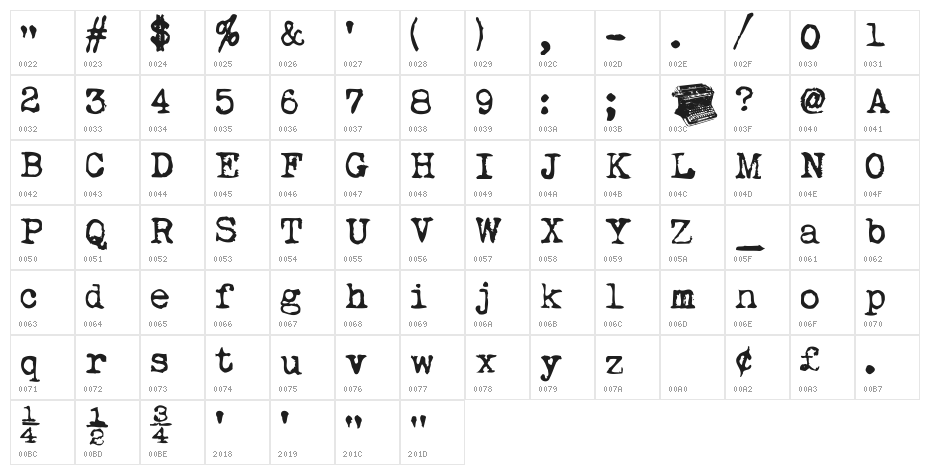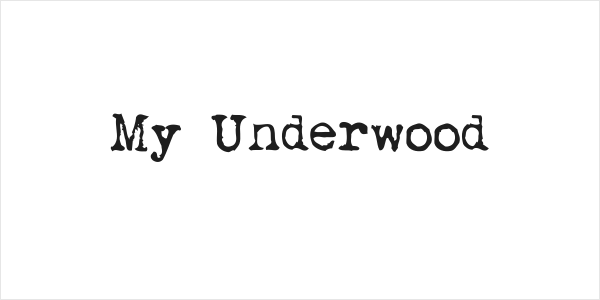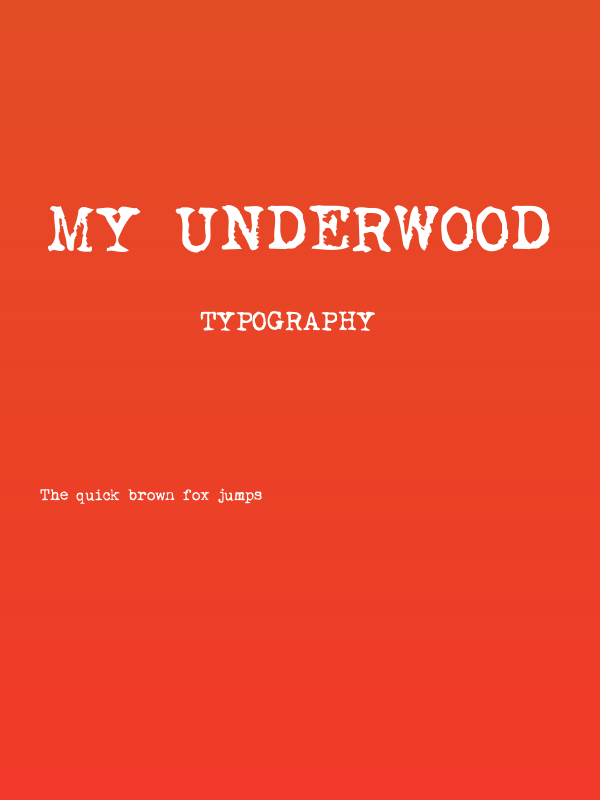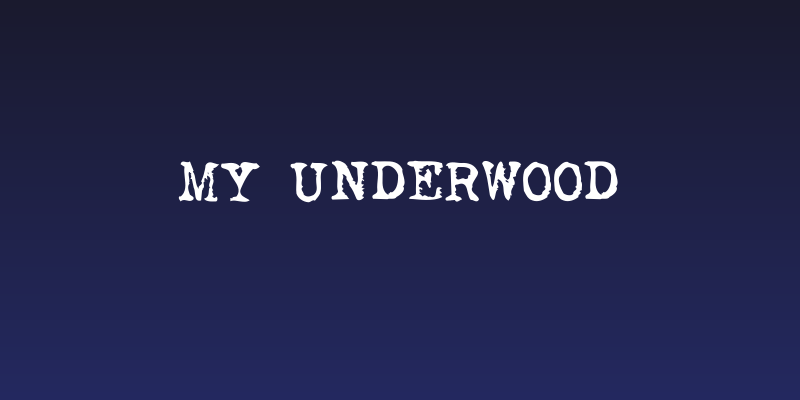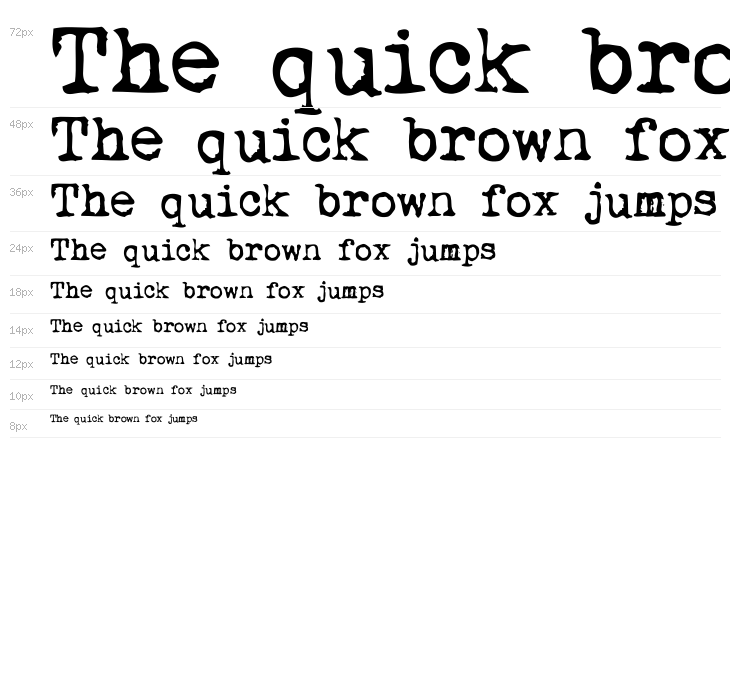
My Underwood Font
My Underwood Description
This font exudes a vintage, typewriter-inspired aesthetic with a distressed, textured appearance that mimics the look of ink on paper. The characters are bold and slightly irregular, giving them a hand-crafted feel. The uppercase and lowercase letters maintain a consistent style, with rounded edges and a slightly uneven baseline, enhancing the retro charm. Numbers and special characters follow the same design, ensuring a cohesive look across all text. This font is perfect for projects that require a nostalgic or rustic touch, such as posters, invitations, or branding materials.
| Proposed Projects | Ideal for vintage-themed designs, posters, invitations, and branding materials. |